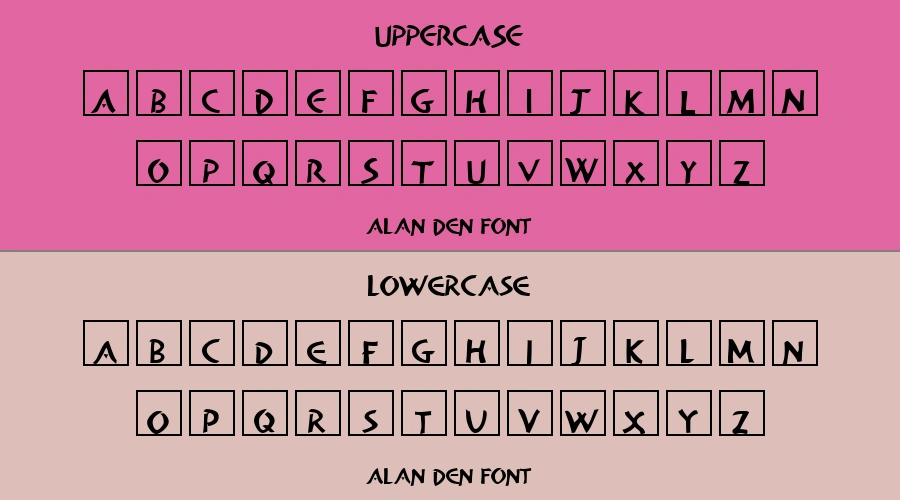
About Alan Den Font
Alan Den Font embodies typographic excellence through its masterful combination of brush influence and tradition. Created for corporate reports, this typeface delivers exceptional reliability and cultural relevance across all applications. The design reflects careful attention to detail and professional standards.
Advanced capabilities include distinctive ball terminals and versatile technical characters, giving designers creative control. When used in footnotes, Alan Den Font exhibits remarkable small cap rendering. The harmonious balance between terminal angle and generational relevance sets this typeface apart.
Alan Den Font |